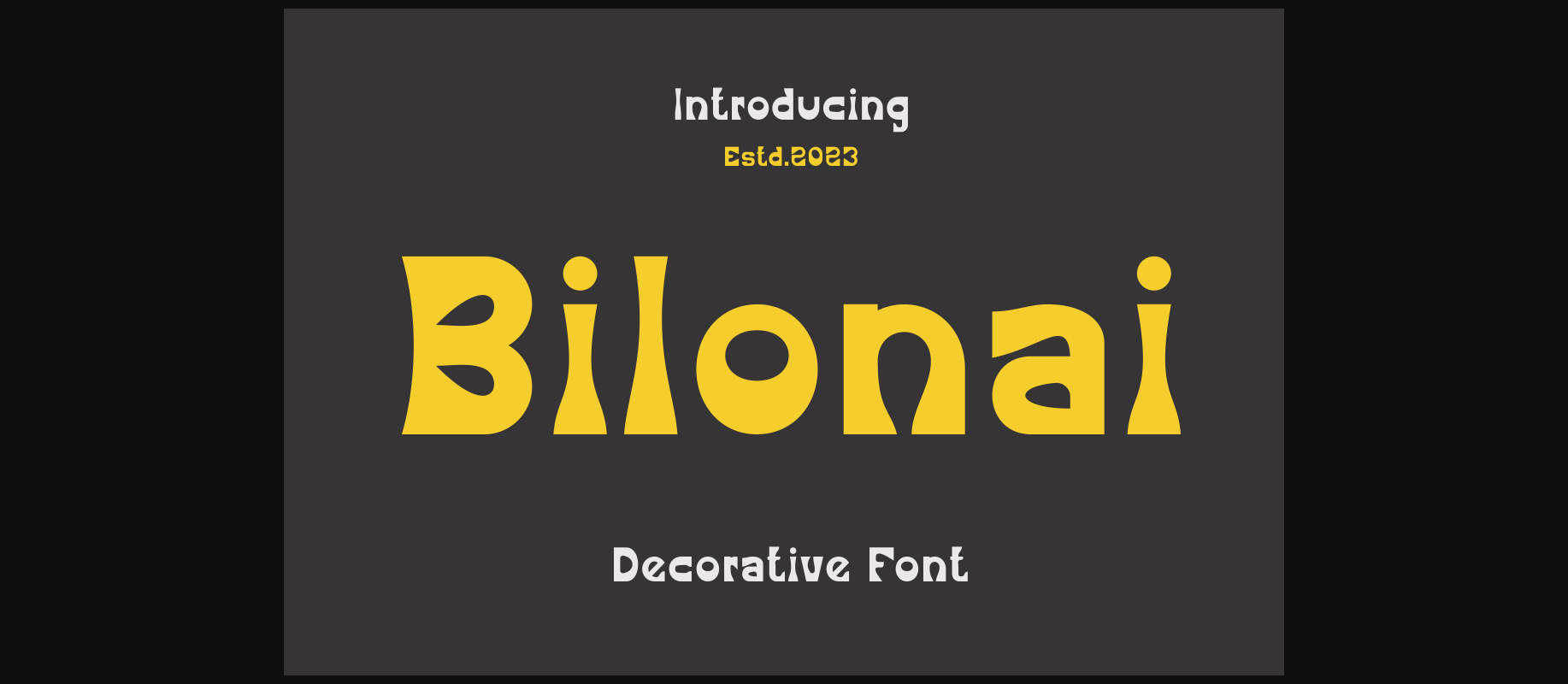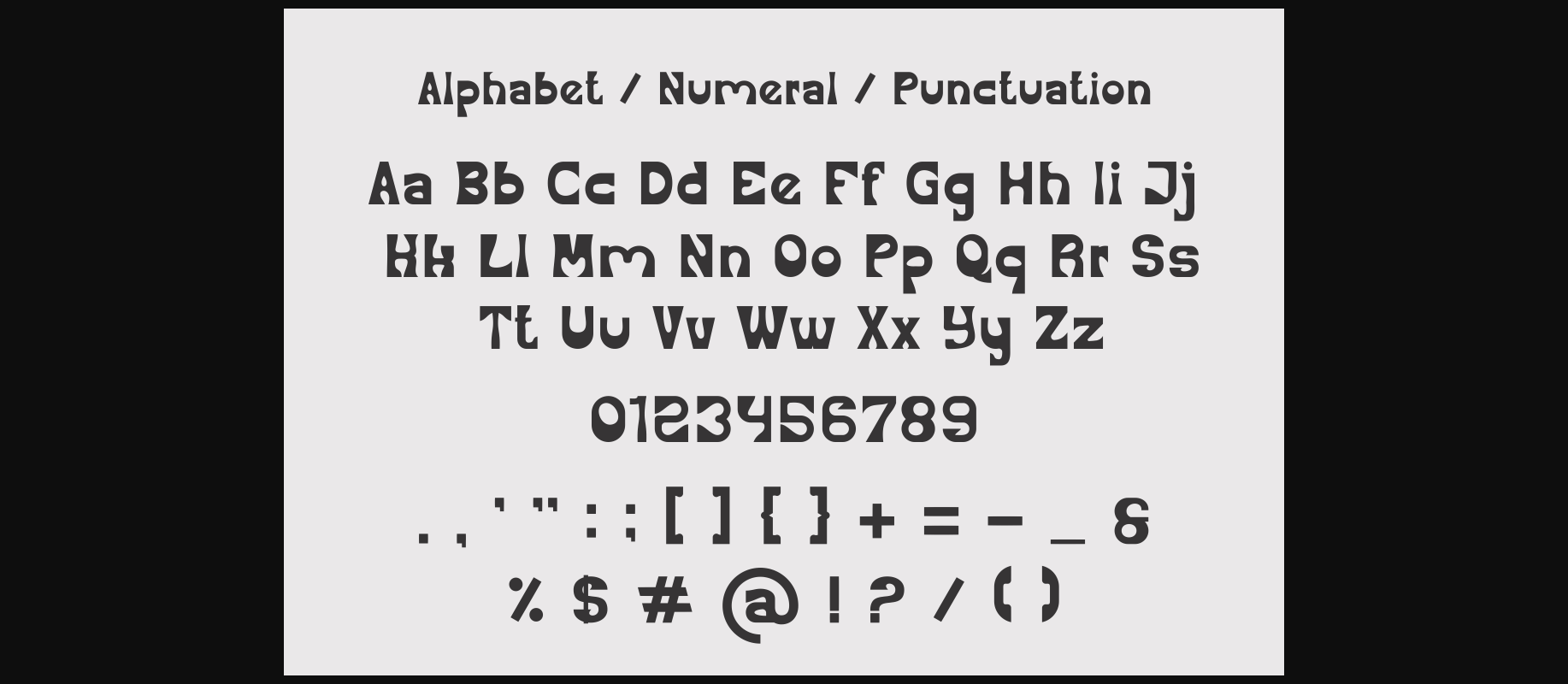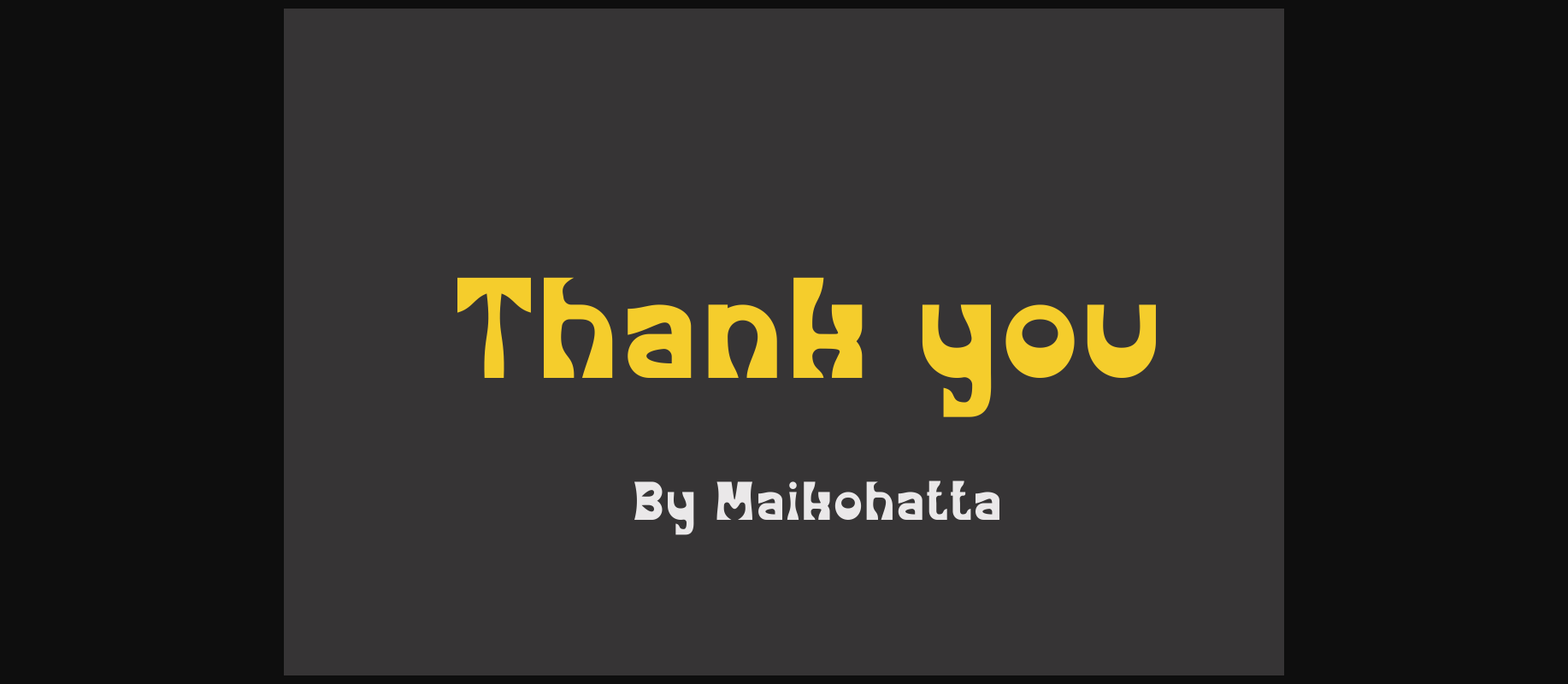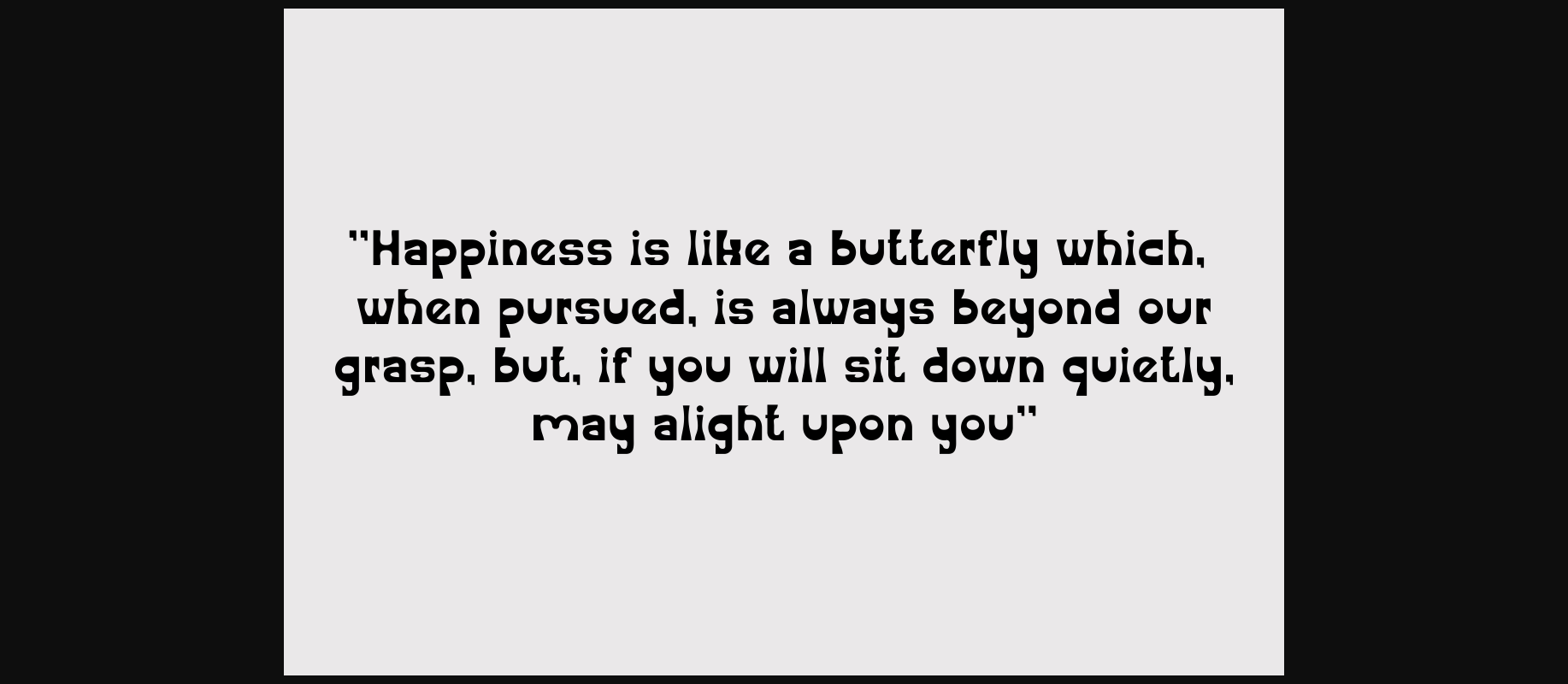
About Bilonai Font
Bilonai Font is a modern decorative font with a bold and authentic touch. This high-quality font is suitable for branding projects like logos, t-shirt printing, esports, and many more.